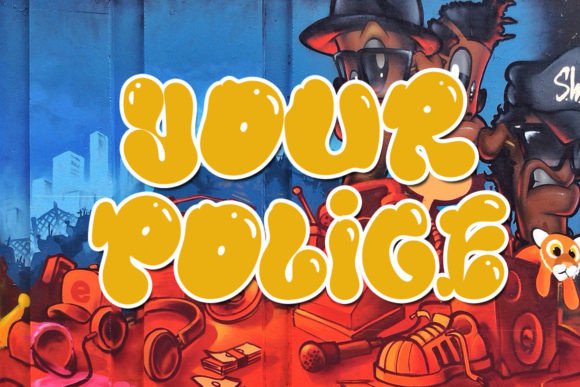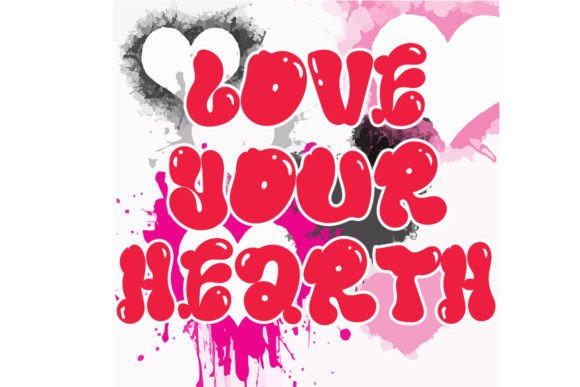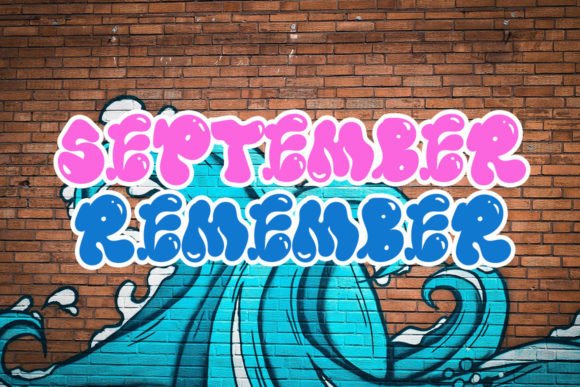
The Perfect Font to Bring Your Designs to Life
Have you ever been working on a project, and suddenly, a spark of creativity hits you? You envision a beautiful, whimsical font that perfectly captures the essence of your idea. That’s exactly what I felt when I discovered the Animation Font. This cute and bubbly display font is sure to add a touch of magic to any design.
Animation Font is designed to be playful and eye-catching, making it perfect for adding a fun twist to your projects. Whether you’re creating a children’s book, a social media campaign, or a logo, this font is sure to bring a smile to your audience’s faces. As a designer, you know how valuable it is to have a versatile font that can add a personal touch to your work.
Key Features of Animation Font
- Unique Character Set: The font features a unique character set, including special characters, ligatures, and swashes, which can add an extra layer of personality to designs.
Designer Review: Animation Font
Overall, I’d say Animation Font is a unique and visually appealing font, but it has its quirks. Here’s my honest take:
- Unconventional style: The font’s animated feel is perfect for creating eye-catching headlines and titles.
- High-contrast design: The font’s bold lines and subtle shading create a nice contrast that grabs attention.
- Flexibility: Animation Font comes in a range of weights and styles, making it versatile for various design applications.
- Legibility issues: At smaller font sizes, the font can become difficult to read due to its busy design.
- Limited usability: Animation Font is better suited for decorative elements rather than body text.
- Overuse potential: The font’s unique style may lead to overuse, which can result in a cluttered and unprofessional design.
Overall, Animation Font is a great choice for designers looking to add a touch of whimsy and playfulness to their projects. However, it’s essential to use it judiciously and in the right context to avoid overusing its unique style.
Tips for Getting the Most Out of it
Use the Animation Font to add a dynamic touch to your text elements. Experiment with different font sizes, colors, and styles to create visually appealing effects. You can also combine the Animation Font with other design elements, such as animations and graphics, to create engaging and interactive content.
The Animation Font is suitable for a variety of applications, including:
- Animated presentations and videos.
- Interactive web content, such as quizzes and games.
- Engaging social media posts and ads.